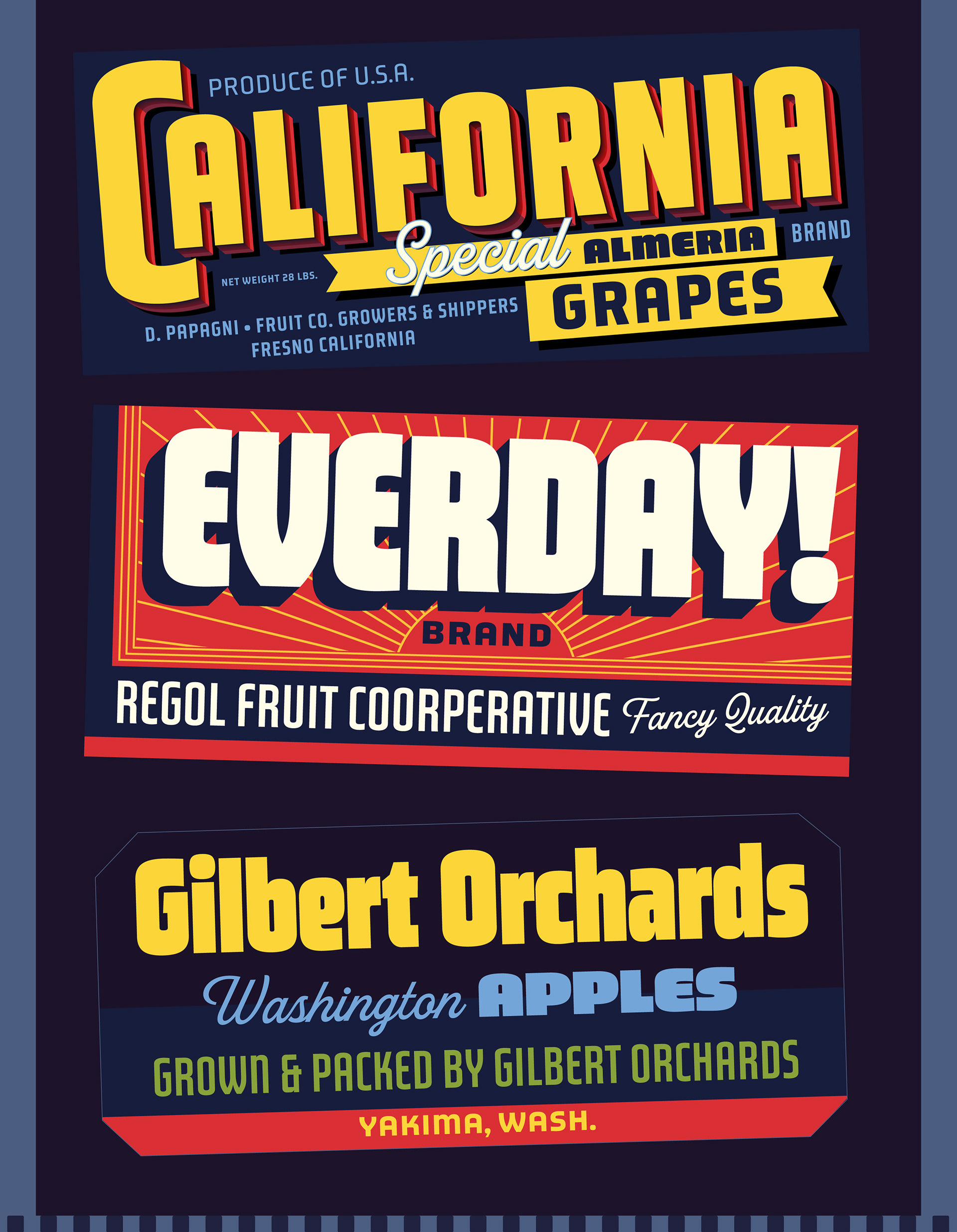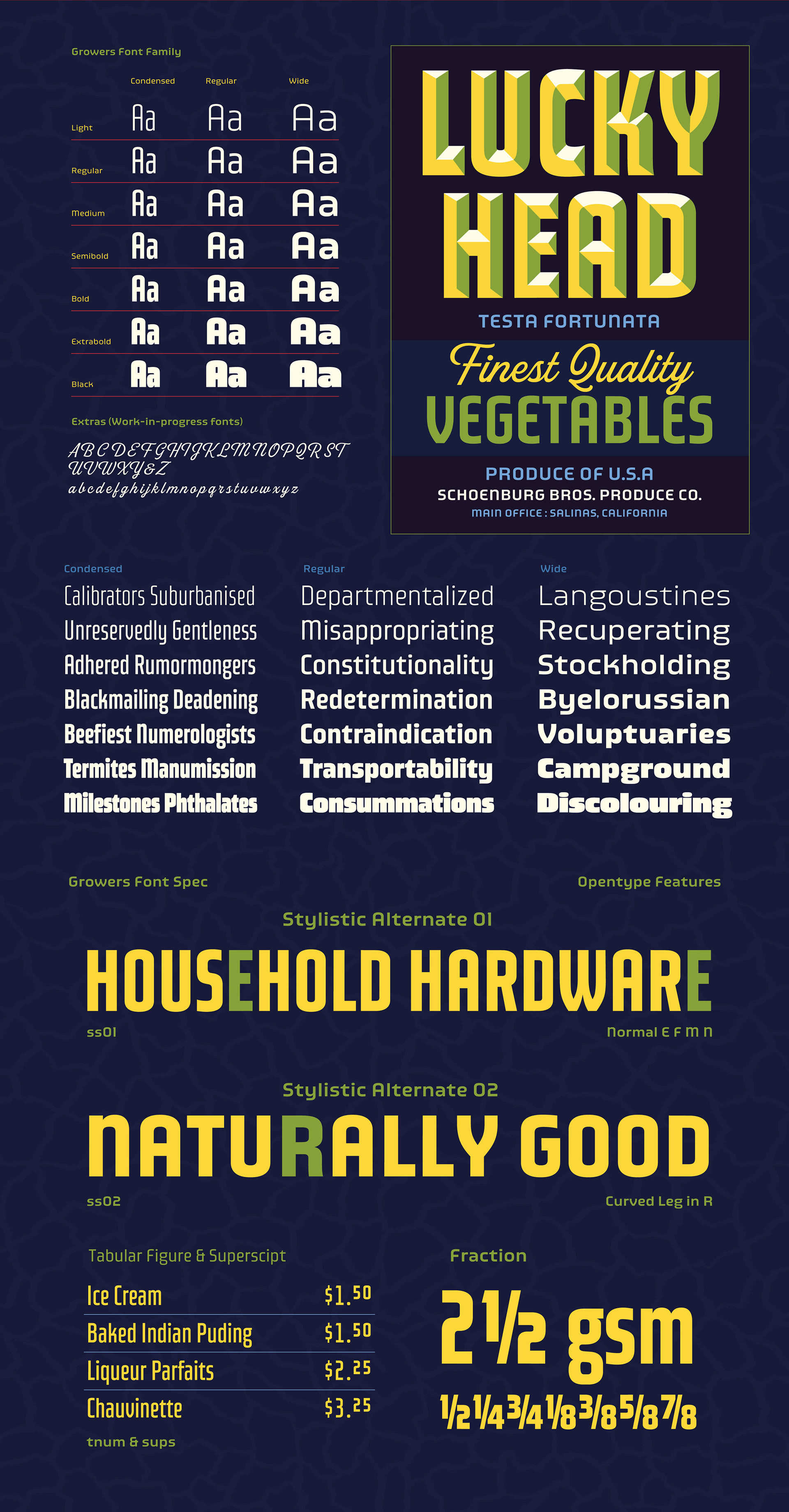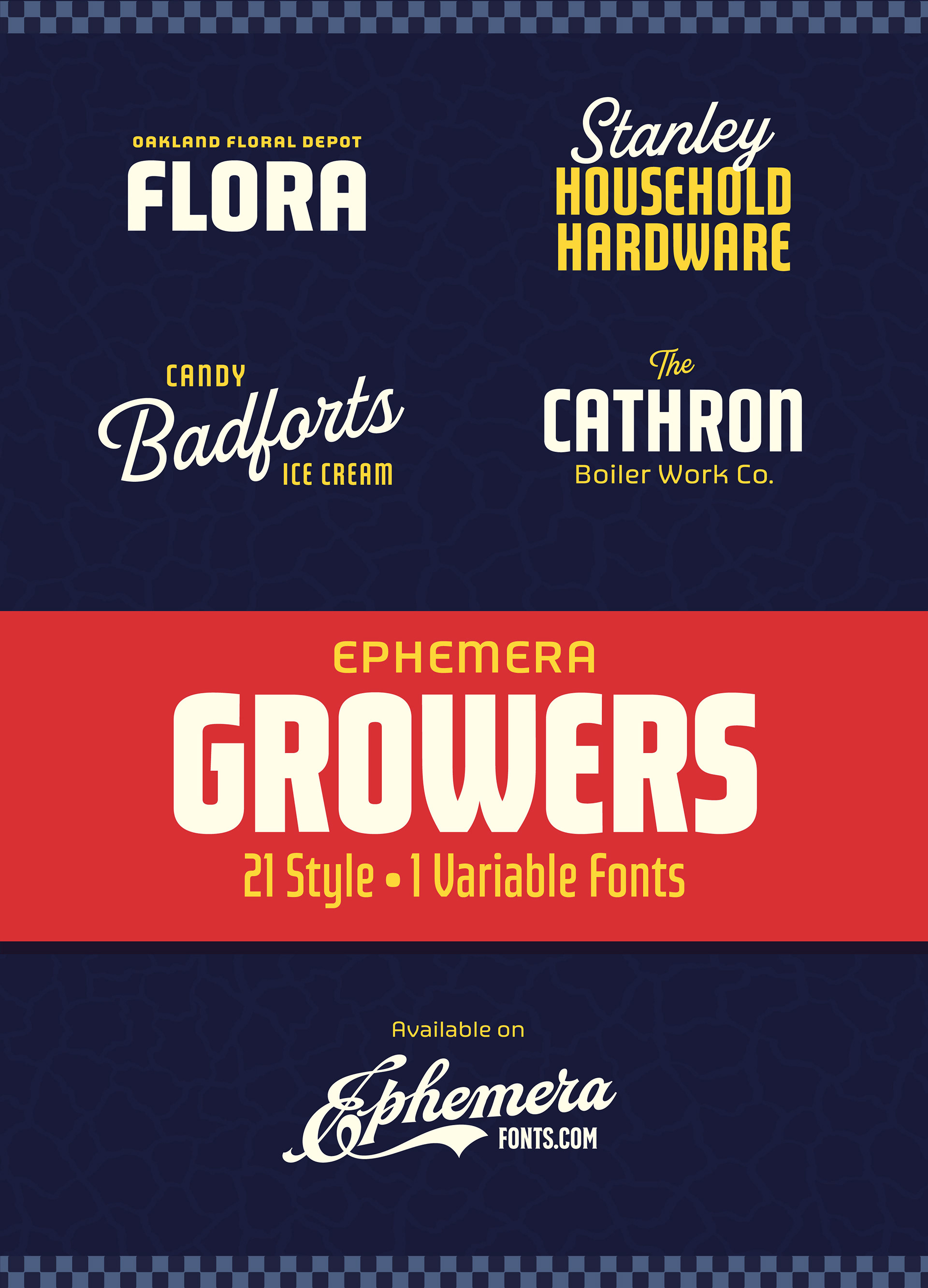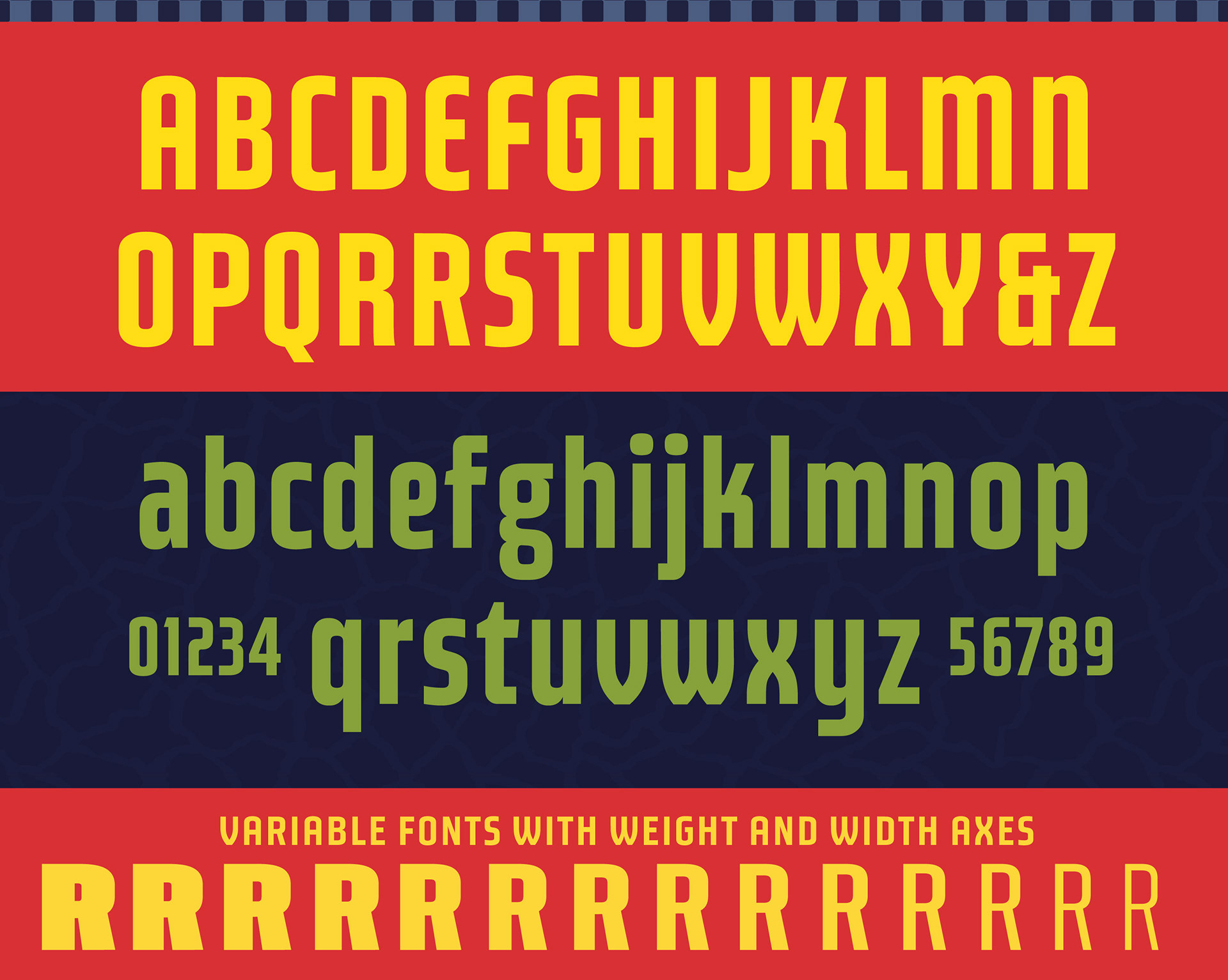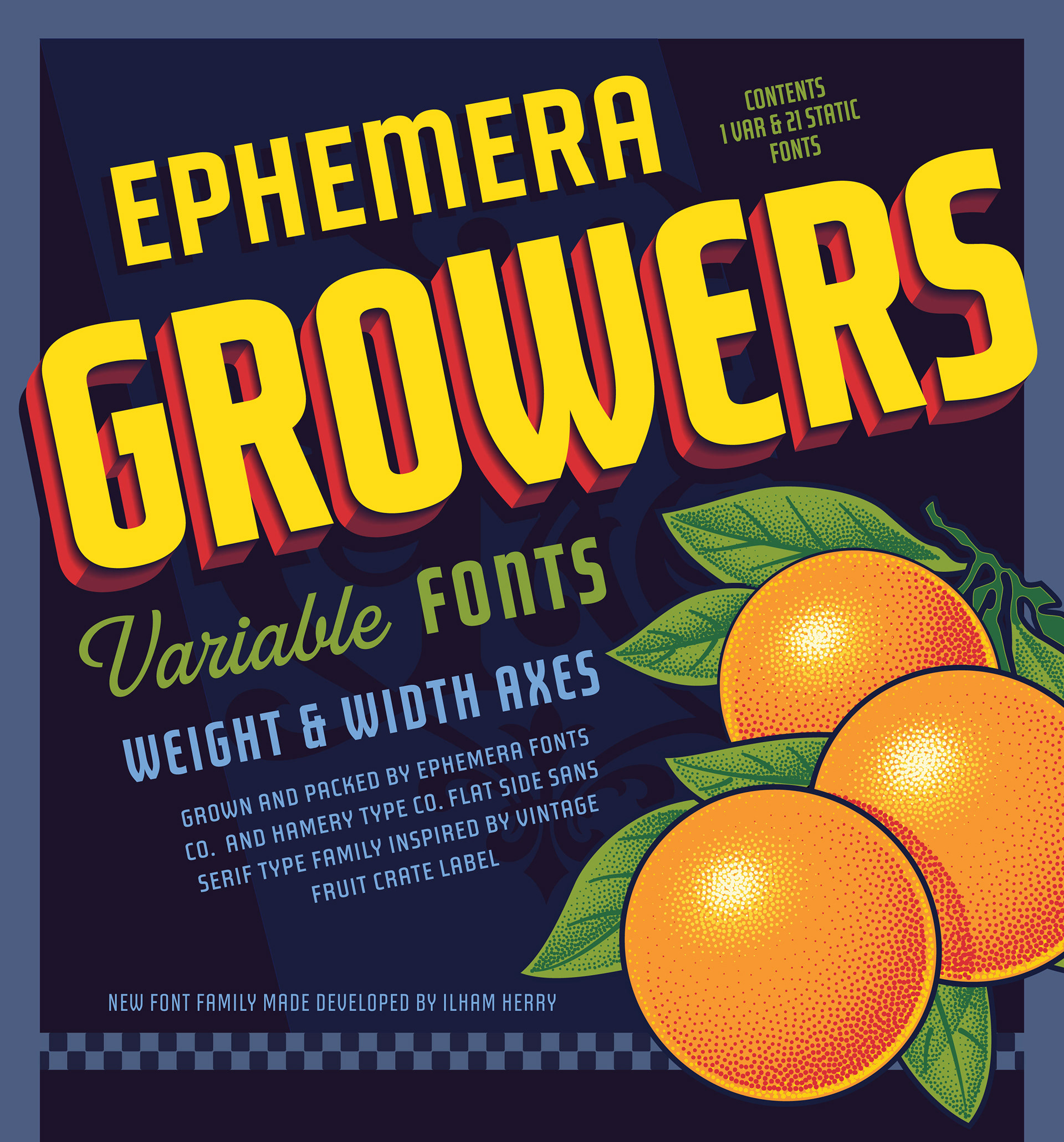
Low contrast flat side sans serif with open apertures, inspired by vintage fruit crate labels. This typeface comes with 21 static fonts, 1 variable font with weight and width axes, and 1 WIP script typeface as a bonus in the full family.
OpenType features support stylistic alternates, tabular figures, superscript figures, and fractions. The variable weight and width make it effortless to mold this versatile typeface to suit any project and create dynamic and harmonious compositions. Ideal for packaging, posters, menus, websites, logos, branding materials, and more.